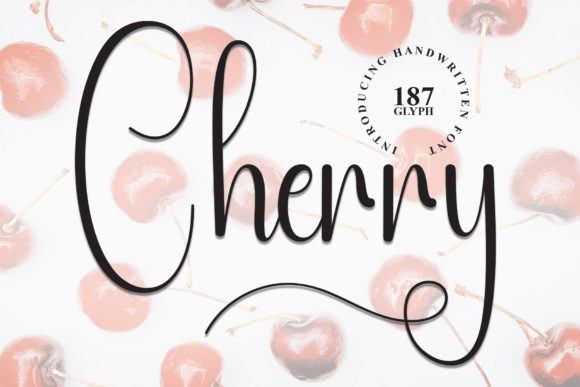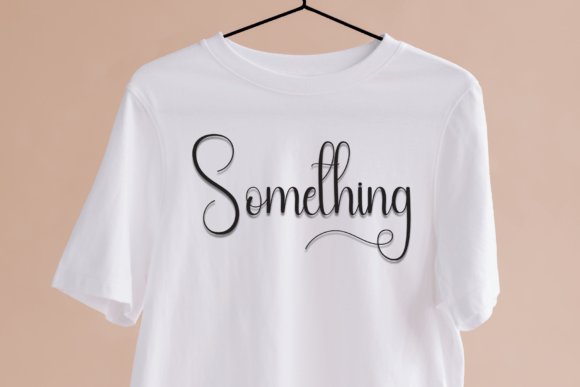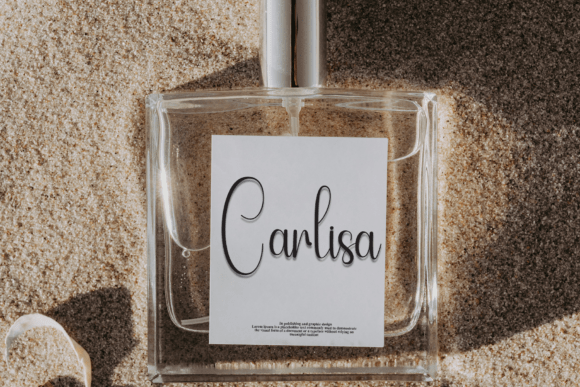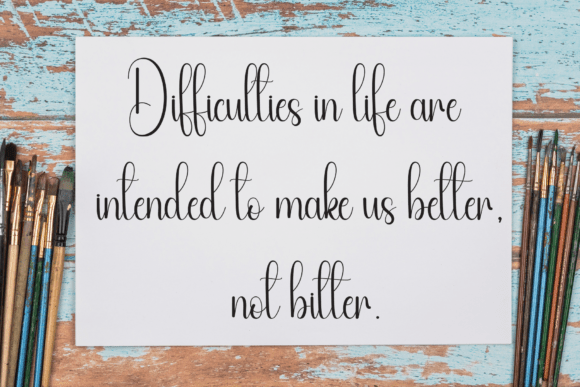
Cherry Font: Elegant Handwritten Script for Branding & Social Media
About the Cherry Font
Meet Cherry Font, a stunning font that brings a touch of elegance and professionalism to any design. Cherry is a stylish handwritten script font that combines elegance with a modern flair. Its flowing strokes and organic curves bring warmth and sophistication to any project. Ideal for branding, invitations, and social media, this typeface adds a personal, refined touch with effortless charm.
Cherry Font Usage Examples
Cherry Font Example